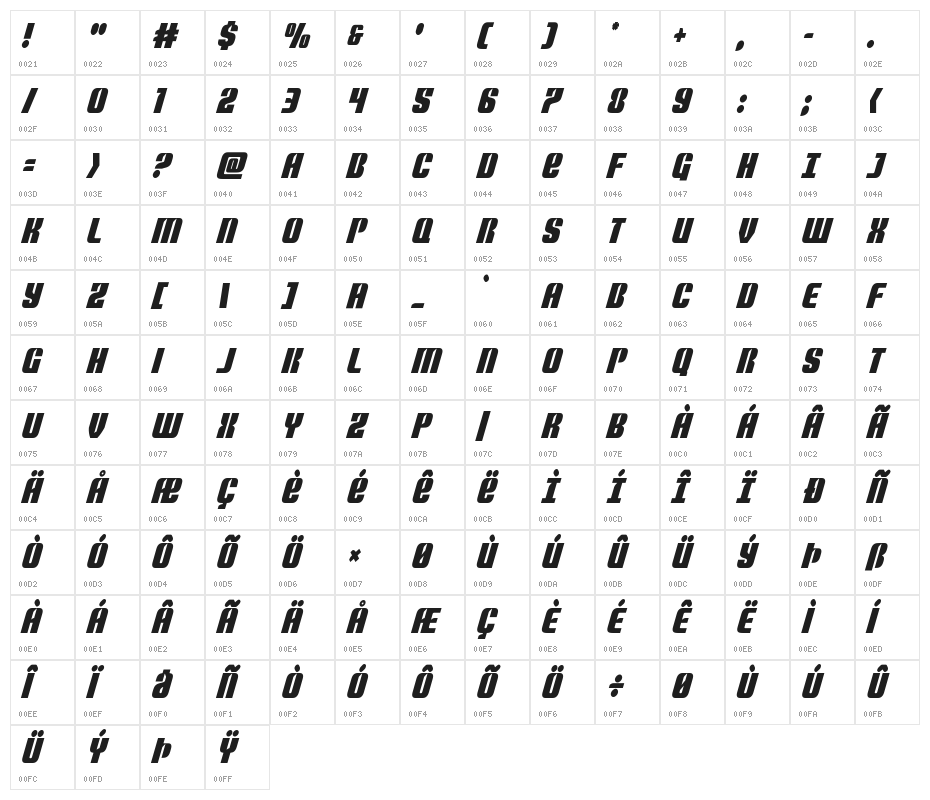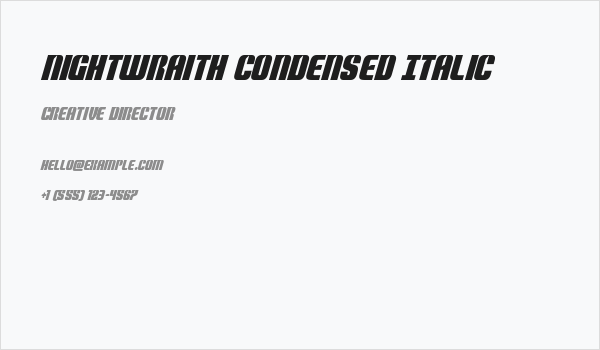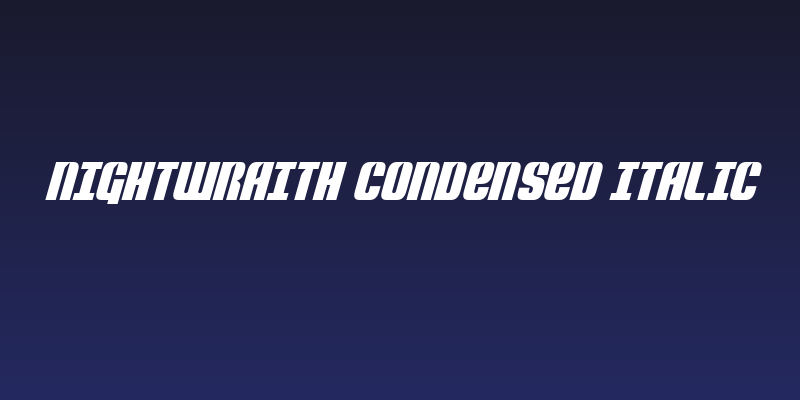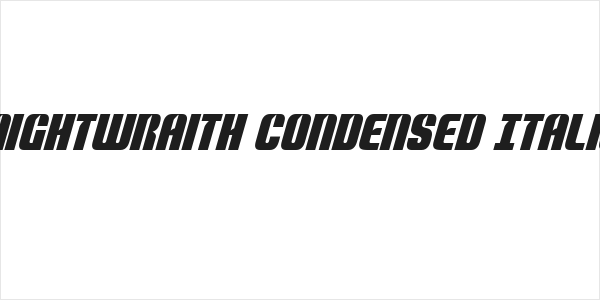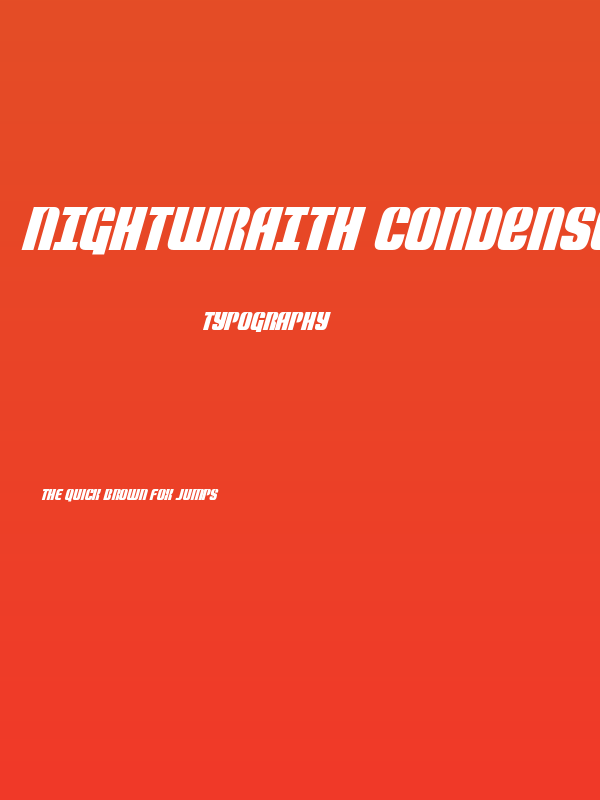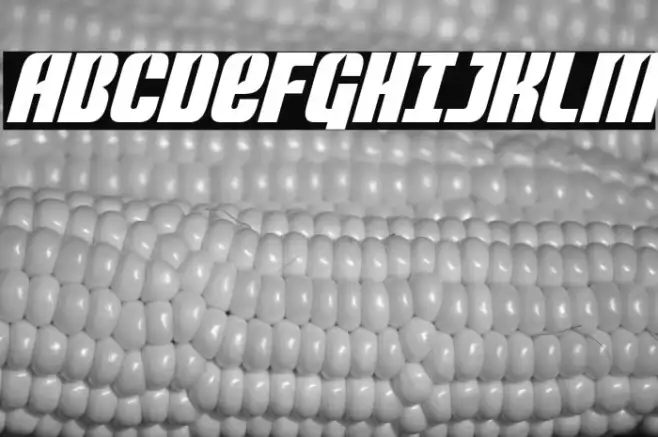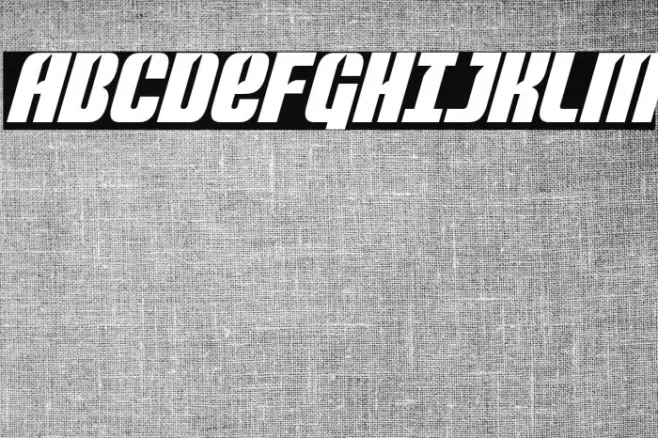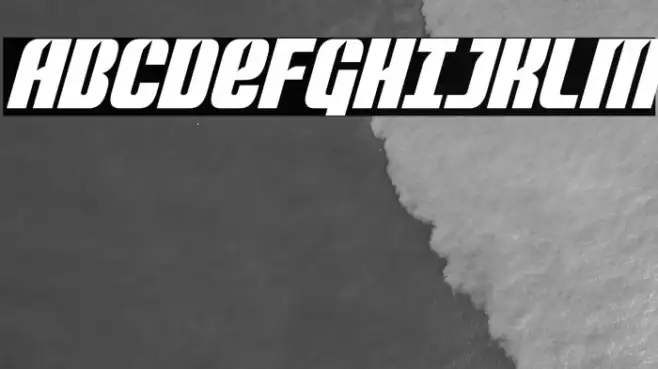
Nightwraith Condensed Italic Font
Nightwraith Condensed Italic Description
This font features a bold, condensed style with a distinct italic slant, giving it a dynamic and energetic appearance. The characters are tightly spaced, enhancing the compact and streamlined look. The strokes are thick and consistent, providing a strong visual impact. The uppercase and lowercase letters maintain a uniform height, contributing to the cohesive design. The numerals and special characters are crafted with the same boldness and slant, ensuring a harmonious overall presentation. This font is ideal for projects that require a modern and assertive aesthetic.
| Proposed Projects | Ideal for sports branding, dynamic posters, modern advertising, and impactful headlines. |